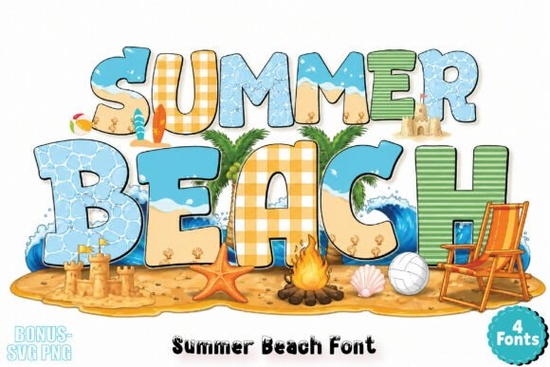
If you're looking for a typeface that brings genuine summer energy to your projects, the Summer Beach Font is worth a close look. This hand-drawn doodle alphabet pack features playful illustrations inspired by beach life, tropical fruits, and sunny themes baked right into each letter. It's designed for people who want their text to feel relaxed, colorful, and unmistakably summery without spending hours adding decorative elements manually.
What Kind of Projects Work Well With This Font?
This font fits naturally into a wide range of summer-themed design work. Here are some popular uses:
- Print-on-demand products t-shirts, tote bags, mugs, and stickers for beach-themed shops
- Social media graphics Instagram posts, story templates, and Pinterest pins for summer promotions
- Party invitations luau parties, pool parties, tropical birthday celebrations
- Small business branding seasonal menu headers, sale banners, and storefront signage
- Scrapbooking and journaling vacation layouts, travel journals, and memory pages
- Greeting cards handmade cards for summer birthdays or just-because moments
The doodle style gives it a casual, hand-lettered feel that works especially well when you want designs to look approachable and fun rather than overly polished.
Does the Font Display in Color?
How Does It Compare to Other Summer Fonts?
There's no shortage of summer fonts with colorful designs available right now, so what makes this one stand out? The main difference is the integrated doodle illustrations. Many colorful fonts rely on gradients or color fills alone, but this one has hand-drawn beach elements think sunglasses, fruits, waves, and palm trees woven into the letterforms themselves.
If you're specifically searching for beach-themed colorful fonts, this one checks most boxes: it's playful, legible at display sizes, and carries a strong seasonal personality without being overwhelming.
Who Is This Font Best For?
This font is a solid choice for anyone who regularly creates seasonal content. Specifically:
- Print-on-demand sellers who need quick, eye-catching designs for summer product lines
- Small business owners looking for a cheerful typeface for summer promotions or event flyers
- Crafters and hobbyists making party supplies, scrapbook pages, or personalized gifts
- Freelance designers who want a ready-made option for client projects with a tropical theme
It's especially useful if you don't have time (or the illustration skills) to add decorative doodles to your lettering by hand. The font does that work for you.
A Few Things to Keep in Mind
- This font is best suited for headlines, titles, and display text the detailed doodle style may be harder to read at very small sizes in body copy.
- Pair it with a simple sans-serif or handwritten font for body text to keep your designs balanced.